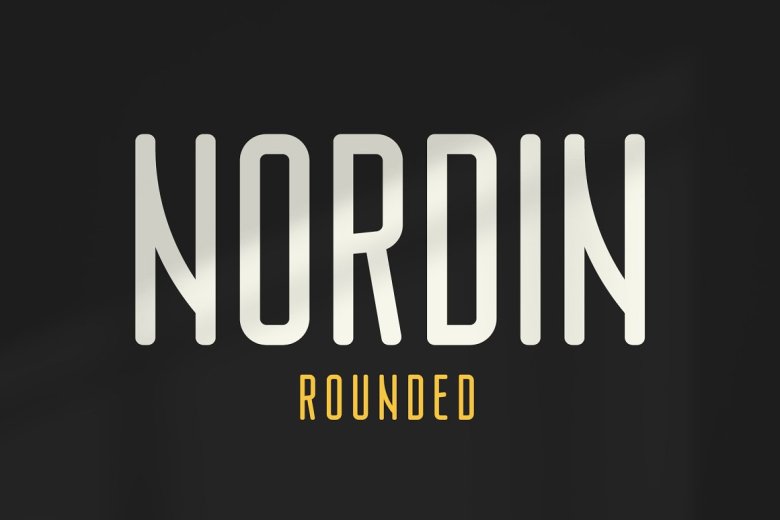
Nordin Rounded Font
Nordin Round Condensed Sans Serif Font is inspired by European type specimen books and Finland Rounded type standards. Nordin Rounded was created for professional use; offering some of the finest values from pioneers while keeping up-to-date with technology and meeting current demands.
Nordin Round has an exceptional structural logic: an infusion between pure geometry and optical harmony. Finland Rounded Font Family features six styles – Regular, Italics, Thins Thin Italics Bold Bold Italics- for various uses including Logos greeting cards quotes posters branding stationary design titles blog headers art quotes typography etc.
Nordin Rounded Sans Serif Font